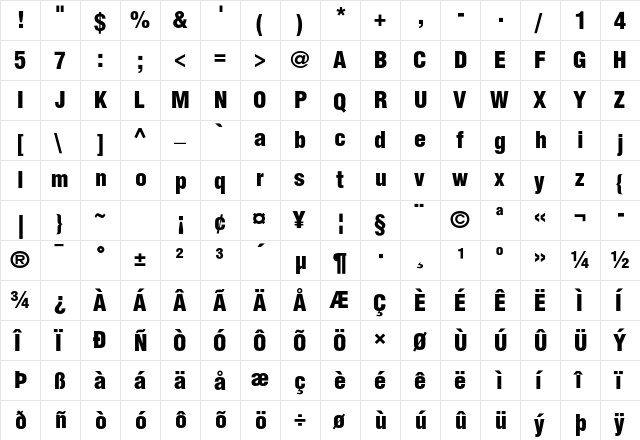
Helvetica LT Std Black Condensed Font Preview
| Designer | Max Miedinger |
Design Context for Helvetica LT Std Typeface
Helvetica LT Std takes a measured approach to typography — its balanced proportions and neutral character make it a reliable workhorse for both digital and print work. Its slender proportions lend an understated elegance to any composition. The condensed width makes it efficient for tight spaces without sacrificing legibility.